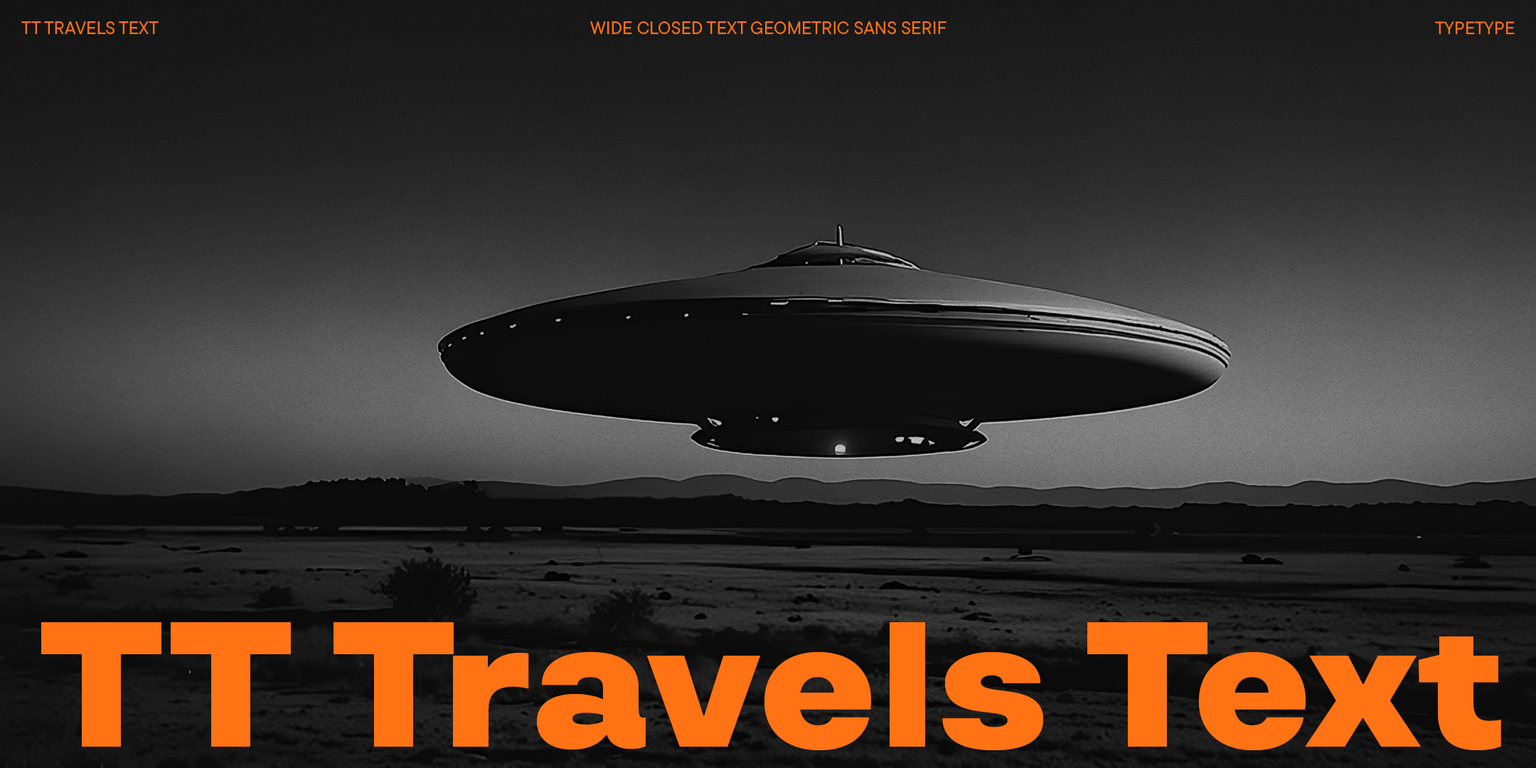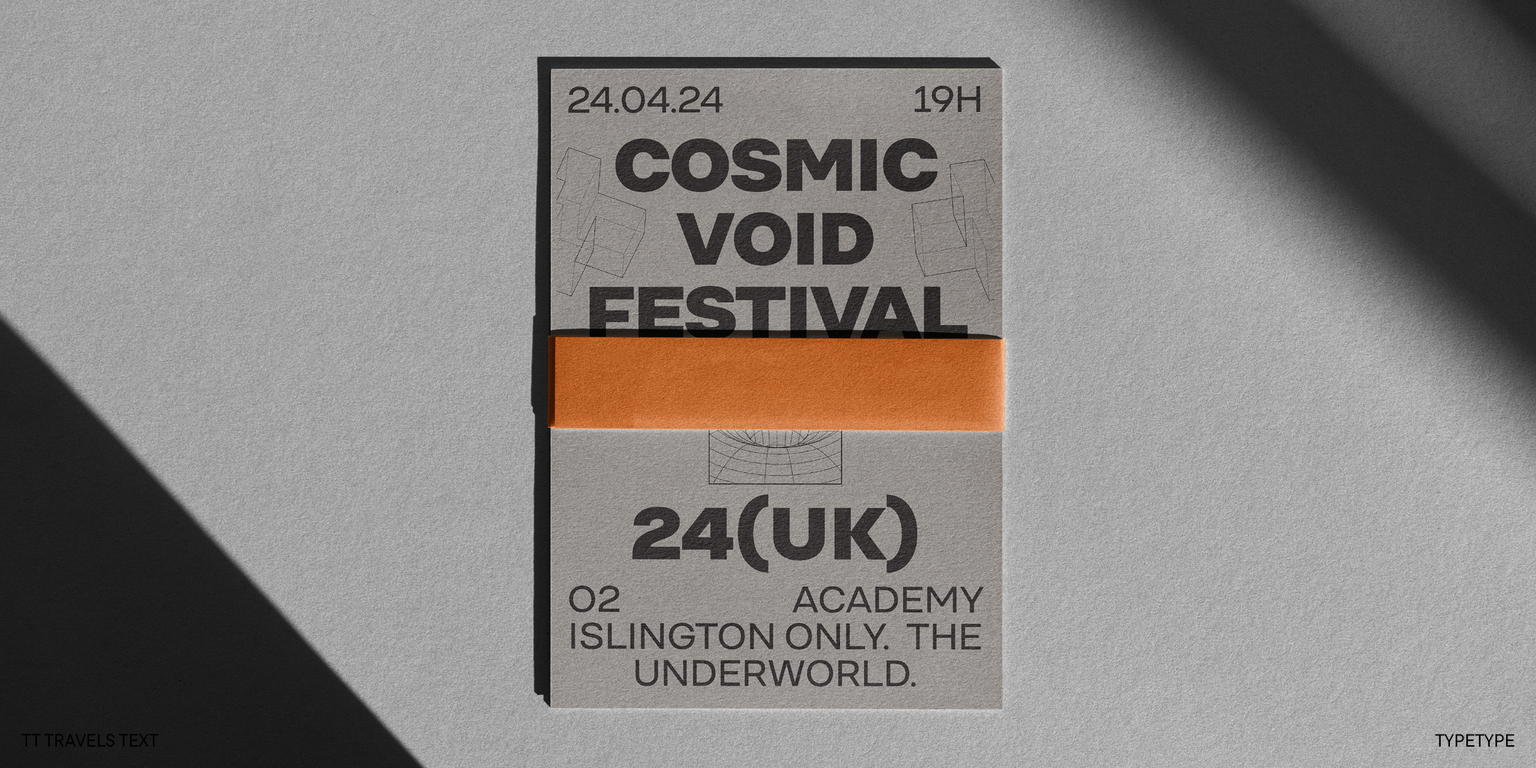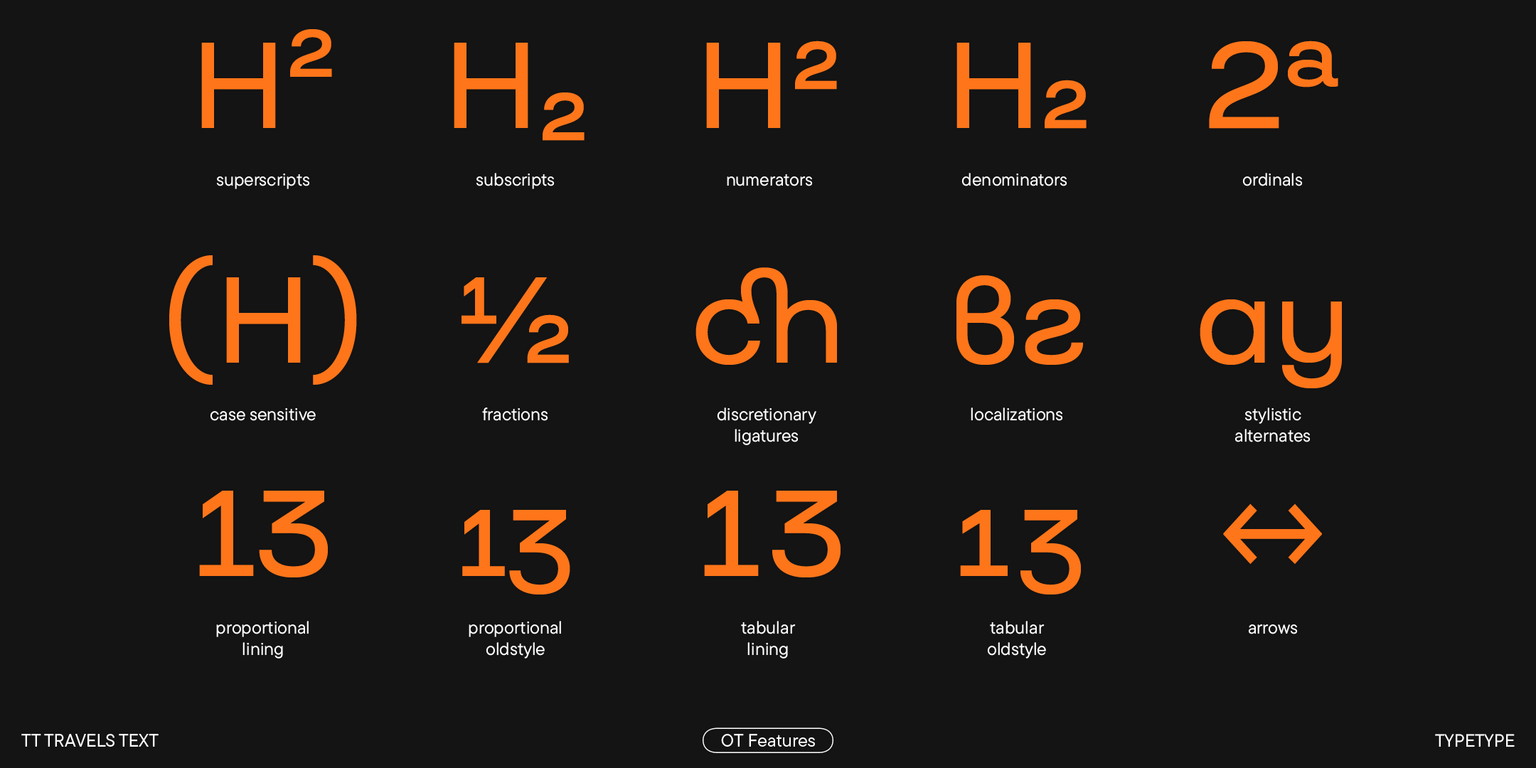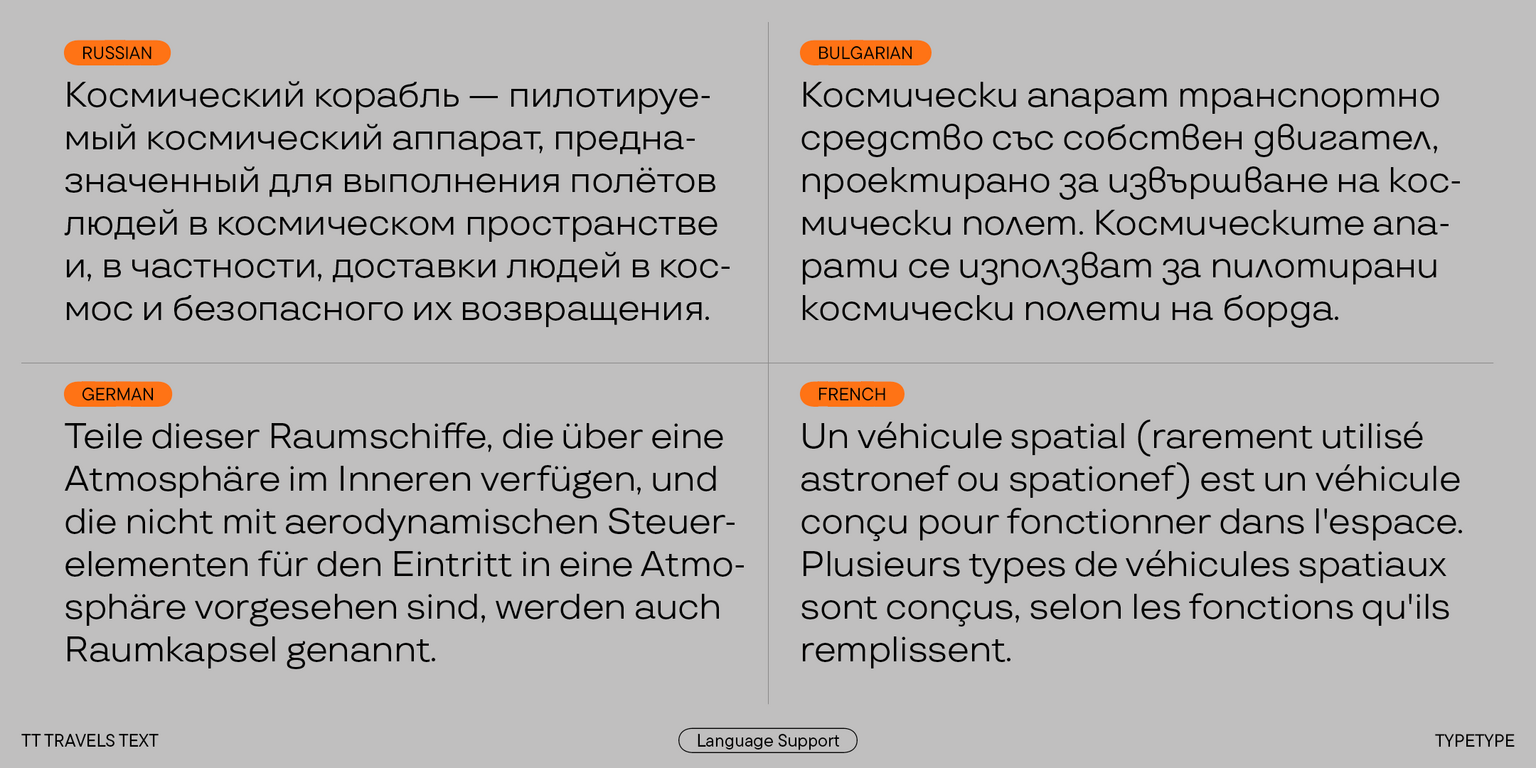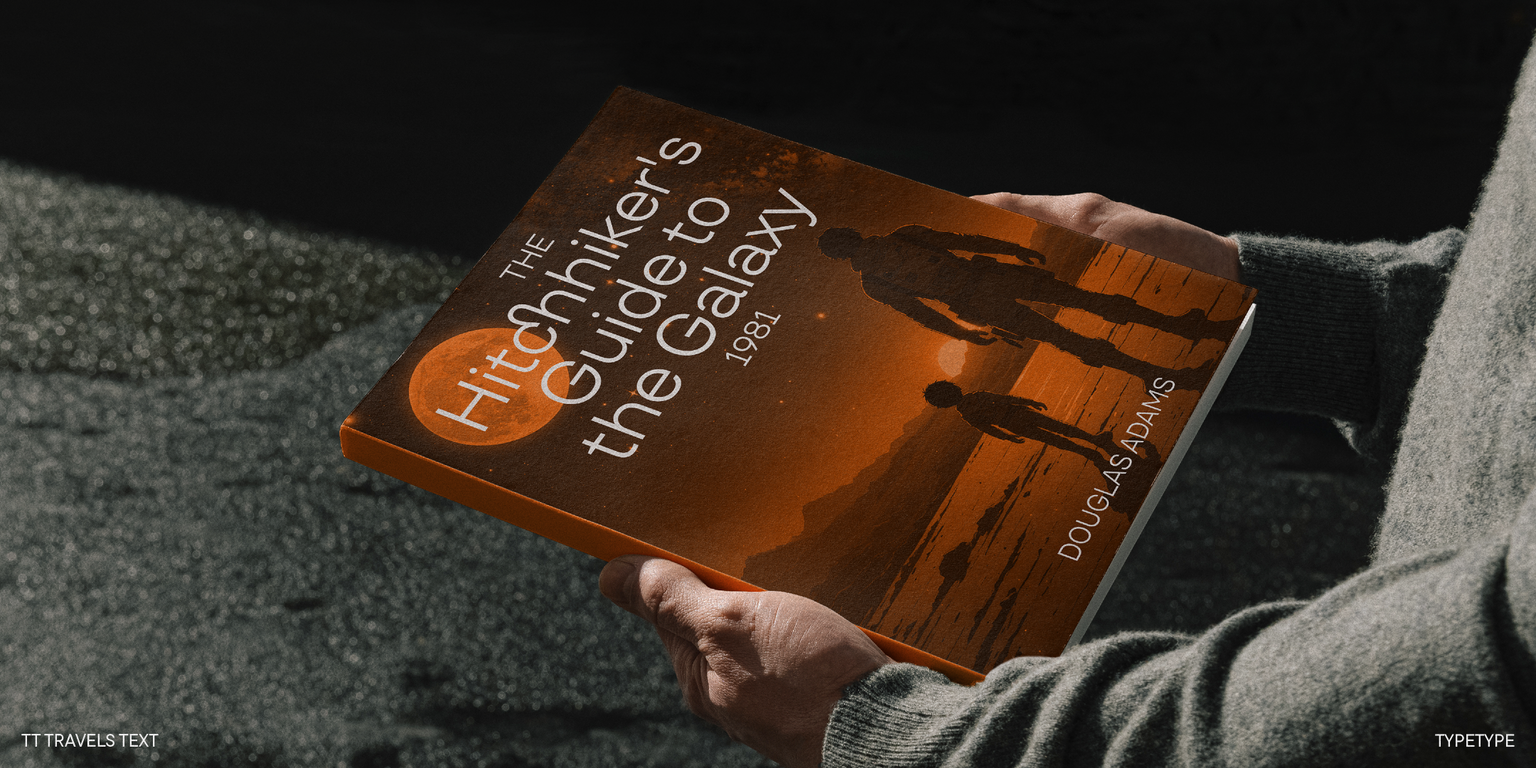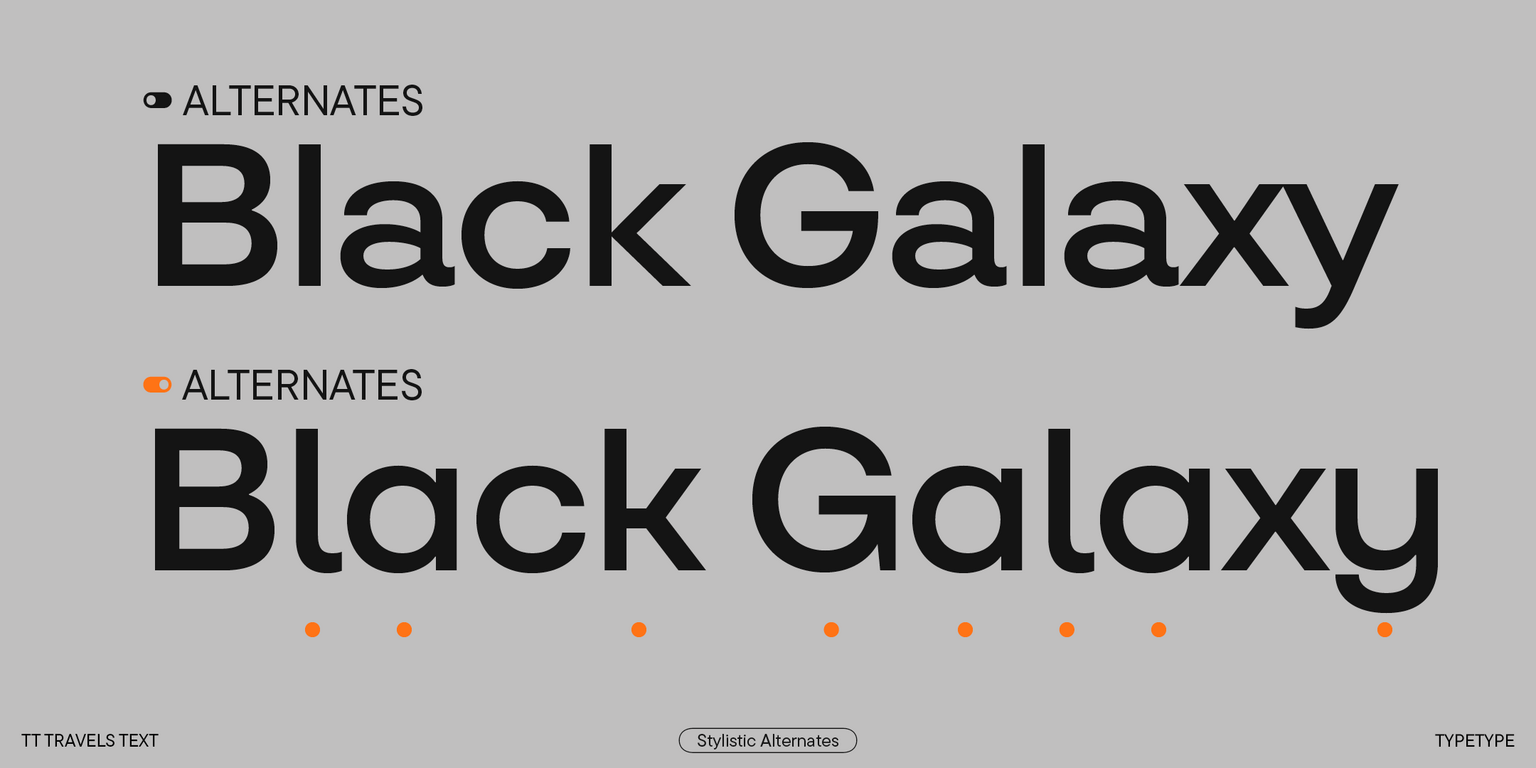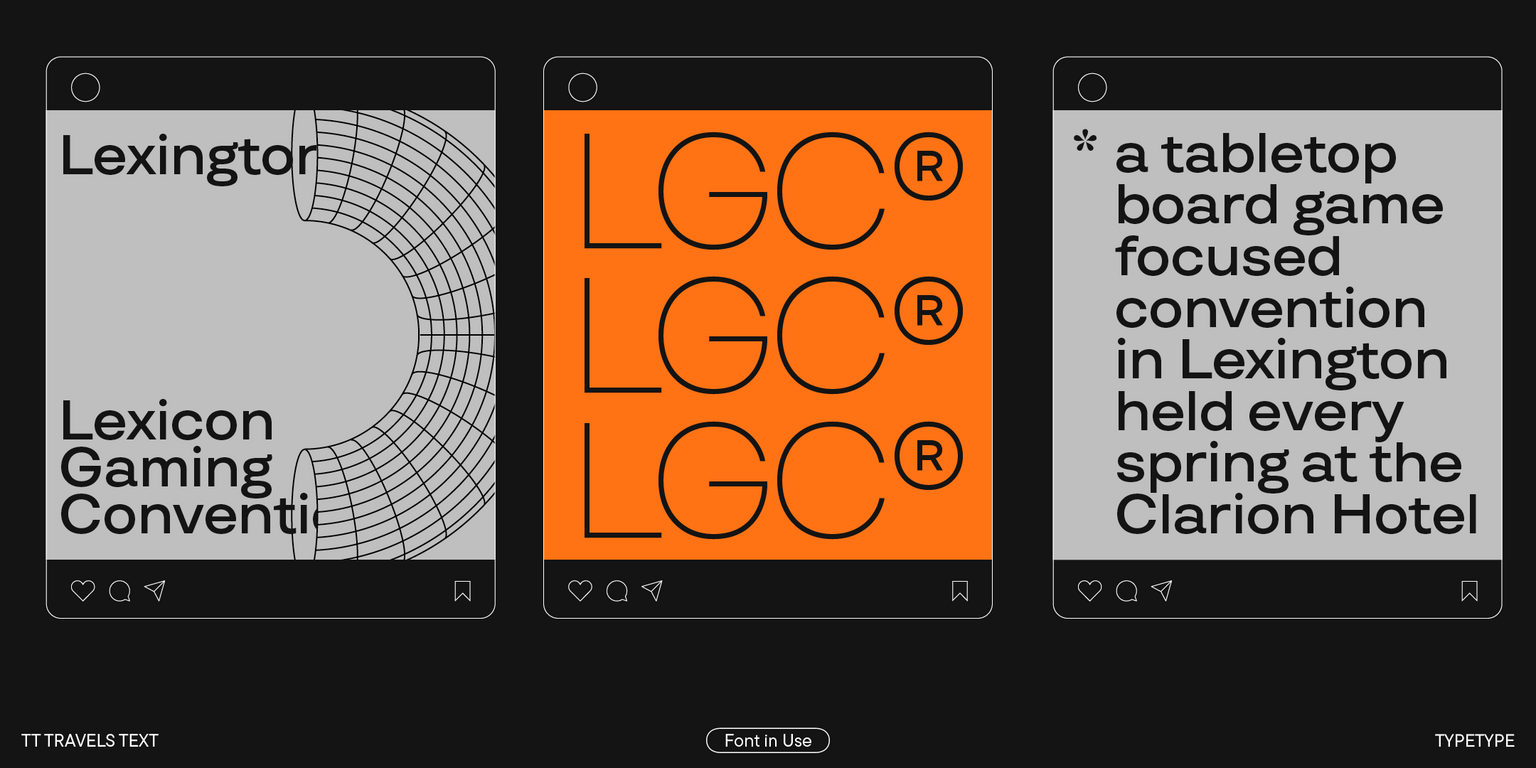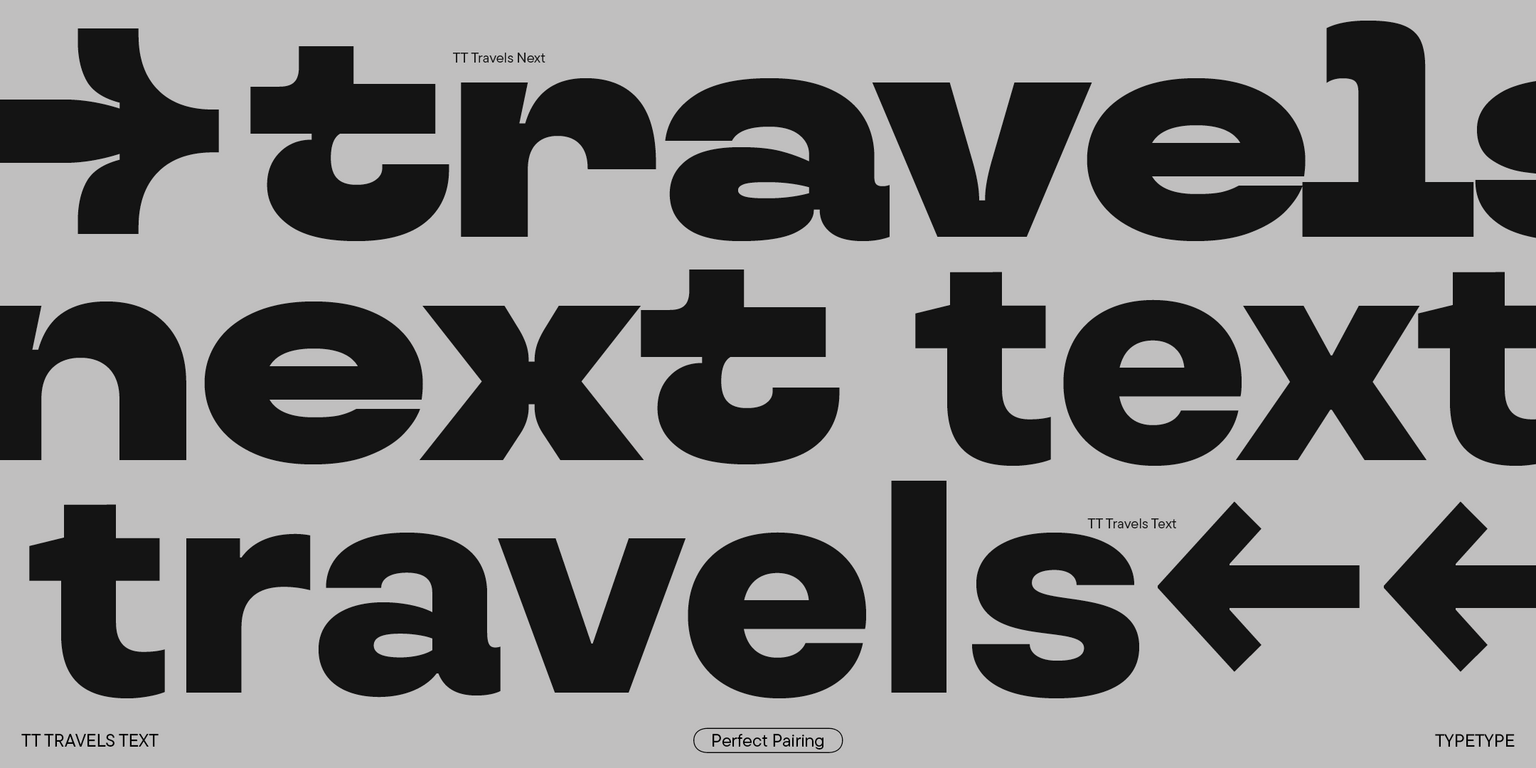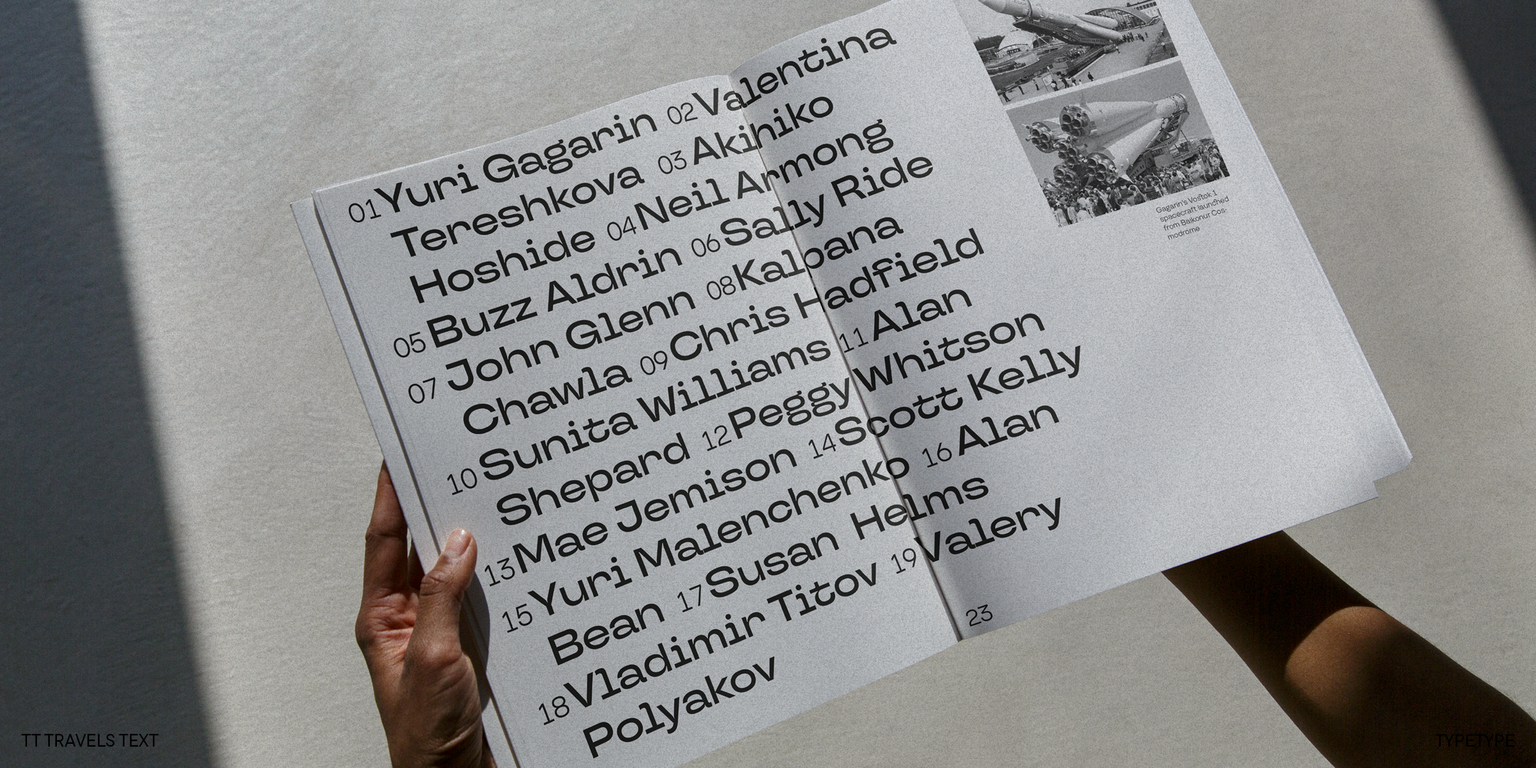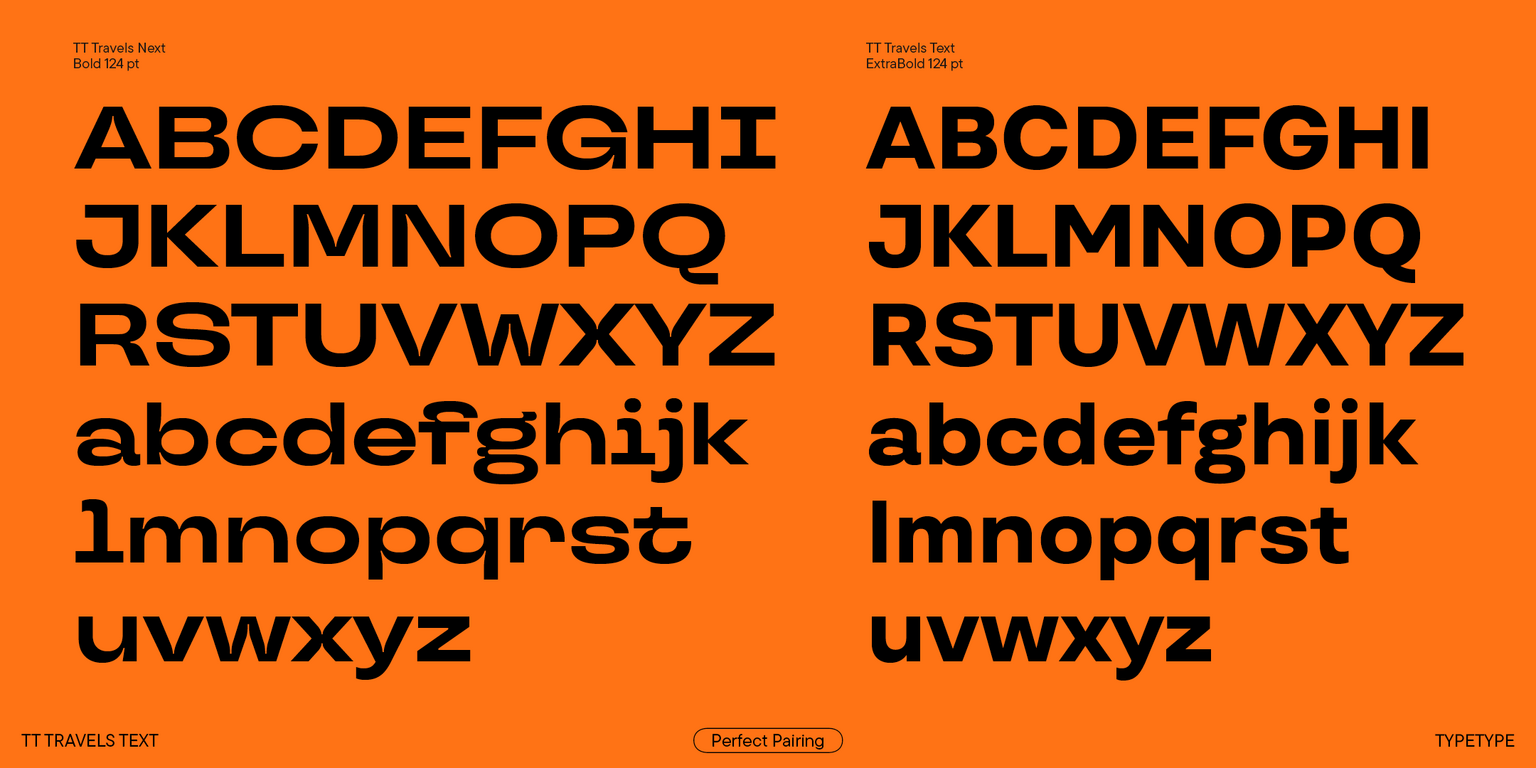
TT Travels Text
TT Travels Text is a wide geometric sans serif designed for body text. It combines versatility with distinctive style.
A versatile text sans serif for any project
TT Travels Text is a complete and highly detailed reincarnation of our legendary TT Travels. The new typeface has more font styles (20 instead of 18) and boasts a larger character set, almost twice as big as it used to be. We added new OpenType features to give the font even more extra capabilities. Also, we refined each contour and integrated our studio’s recent innovations into the typeface. In fact, we crafted a new text sans serif that will become an all-purpose workhorse for any project of yours.
Geometric, text, neutral
Introducing TT Travels Text—TypeType’s new text font based on the legendary TT Travels.
TT Travels Text is a geometric sans serif with wide proportions. When creating this font, our goal was to maintain the central idea and recognizable features of the familiar TT Travels, making it cleaner and more modern. As a result, we have an independent typeface that perfectly complements TT Travels Next as a pair and equally excels in solo work.
The key visual features of TT Travels Text are wide proportions and slightly squared forms of ovals. To make the typeface readable, we increased the height of lowercase letters and opened the aperture more compared to the original TT Travels. We also worked on the proportions and contours, slimmed down the oval shapes, and reworked the master weights to harmonize the text version and TT Travels Next as a pair. In addition, we removed ink traps in the bold font style, making the font’s appearance more neutral and modern.
The new TT Travels Text boasts numerous helpful OpenType features. Stylistic sets include softer, more neutral forms. The expanded ligature sets graphic is now calm and smooth, supporting the overall mood of the typeface. The typeface also includes a variable font with two axes of variation to enhance its application range even more.
Thanks to the visual traits we mentioned above, TT Travels Text can be used in running text as well as brand identity, web, and printing—as an independent graphic accent. The typeface is an ideal, well-balanced match for book and magazine layouts, poster design, and packaging. However, due to the font’s neutral character, the application range of TT Travels Text is almost limitless, and paired with TT Travels Next, the typeface unleashes its full potential.